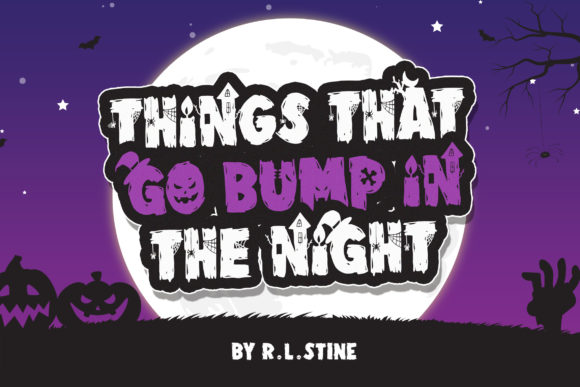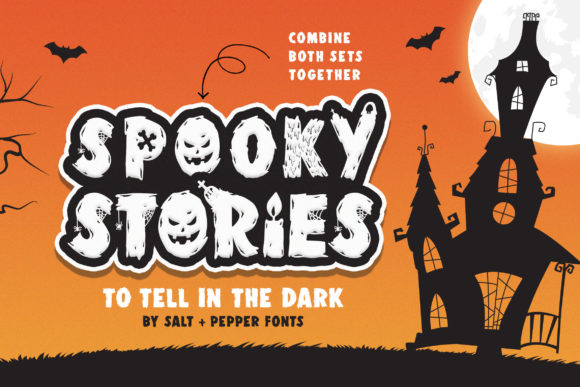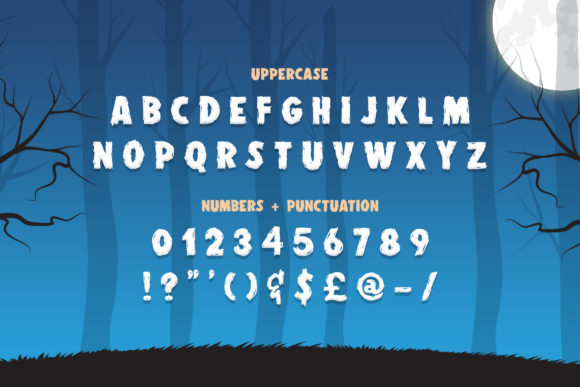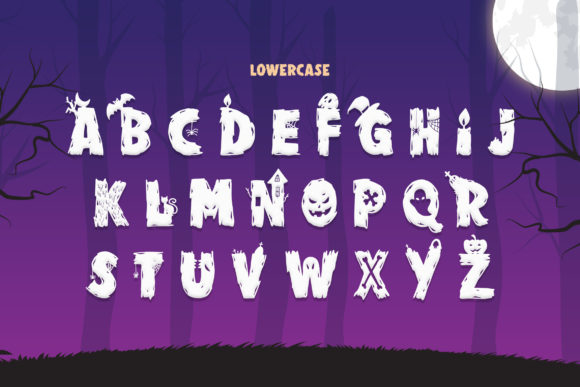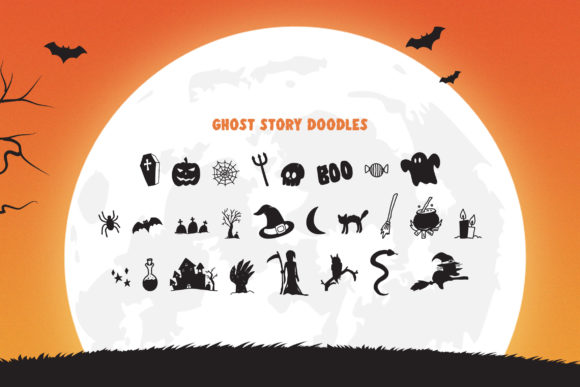
Introduction to Ghost Story Duo Font
Ghost Story Duo is a spooky and fun duo font (display and dingbats).
It is perfectly suitable for any Halloween-related project or crafty idea The only limit is your imagination.
Key Features of Ghost Story Duo Font